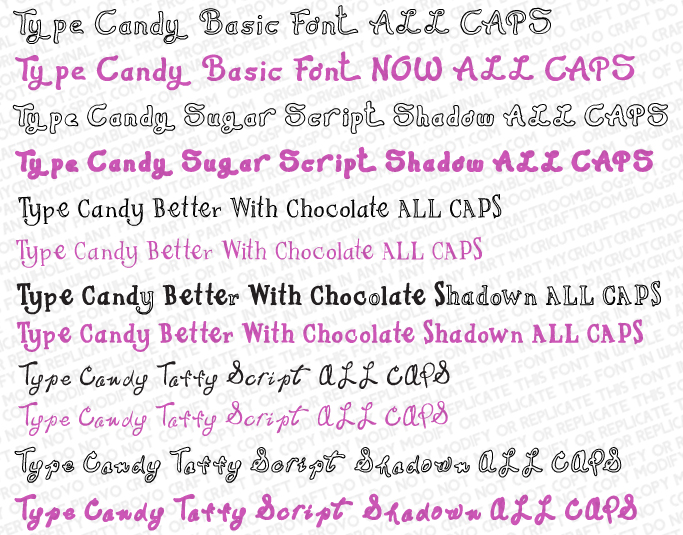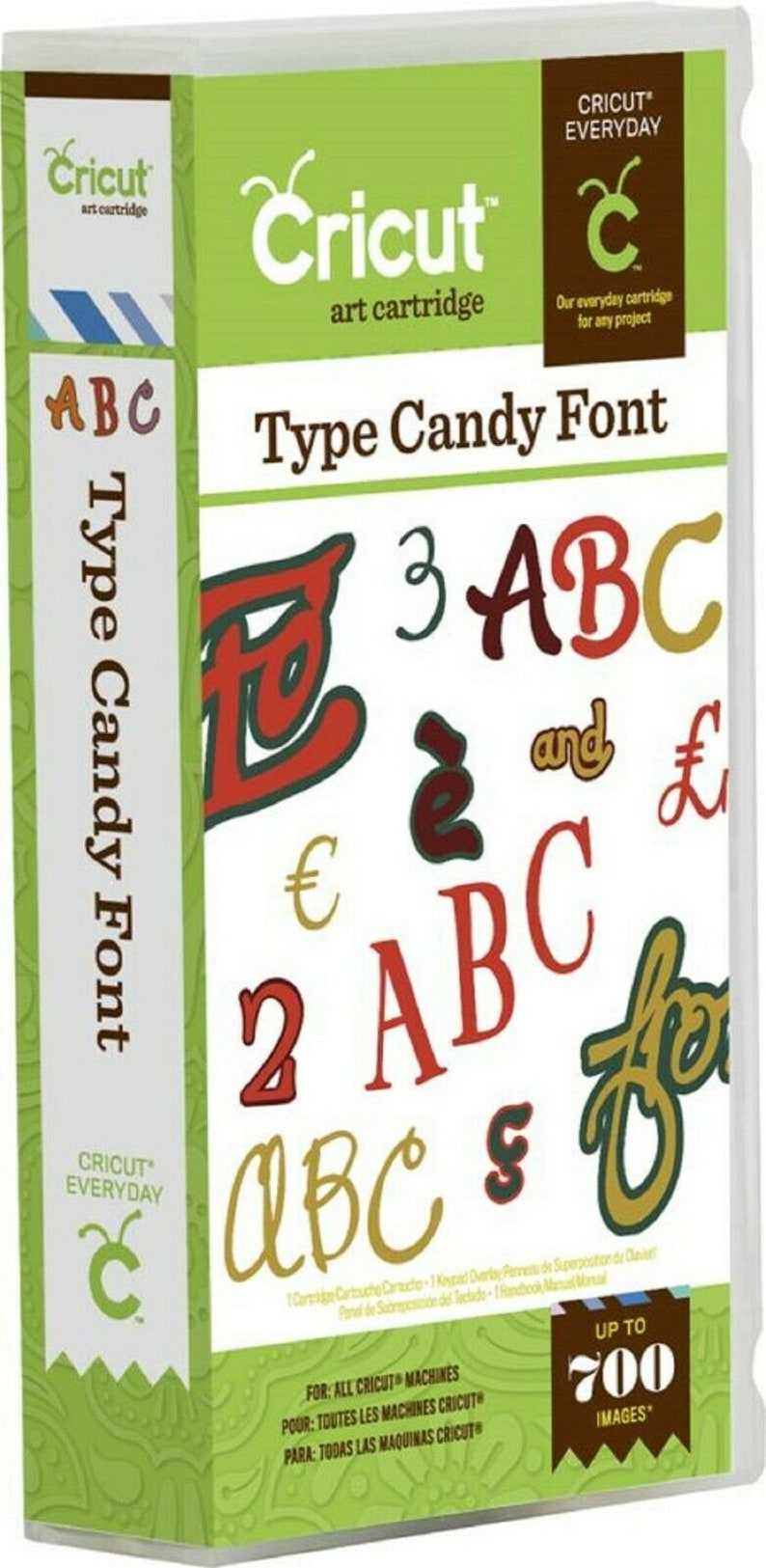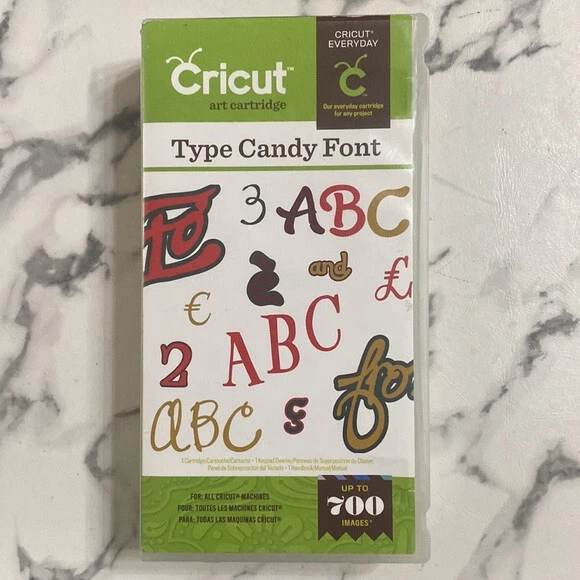
Cricut Cartridge Type Candy Font . A unique and special font that can be used to enhance just about any project. Get the best deals for type candy font cricut cartridge at ebay.com. A unique and special font that can be used to enhance just about any project. Find great deals on ebay for cricut type candy font cartridge. Spice up your creative projects with the type candy cartridge! See more circut 2001253 type candy cartridge; Spice up your creative projects with the type candy cartridge! This charming font cartridge features three sweet fonts with shadows. Find great deals on ebay for cricut type candy cartridge. Take fonts to a new level with the type candy cartridge. This charming font cartridge features three sweet fonts with. Share | add to watchlist. Take fonts to a new level with the type candy cartridge. We have a great online selection at the lowest prices with fast & free.
We have a great online selection at the lowest prices with fast & free. Find great deals on ebay for cricut type candy font cartridge. Take fonts to a new level with the type candy cartridge. Get the best deals for type candy font cricut cartridge at ebay.com. This charming font cartridge features three sweet fonts with shadows. Share | add to watchlist. Spice up your creative projects with the type candy cartridge! Spice up your creative projects with the type candy cartridge! A unique and special font that can be used to enhance just about any project. This charming font cartridge features three sweet fonts with.
Cricut Cartridge Type Candy Font Share | add to watchlist. Spice up your creative projects with the type candy cartridge! A unique and special font that can be used to enhance just about any project. Get the best deals for type candy font cricut cartridge at ebay.com. Take fonts to a new level with the type candy cartridge. Spice up your creative projects with the type candy cartridge! Find great deals on ebay for cricut type candy font cartridge. Share | add to watchlist. Take fonts to a new level with the type candy cartridge. We have a great online selection at the lowest prices with fast & free. A unique and special font that can be used to enhance just about any project. This charming font cartridge features three sweet fonts with shadows. Find great deals on ebay for cricut type candy cartridge. See more circut 2001253 type candy cartridge; This charming font cartridge features three sweet fonts with.
Type Candy Cricut fonts cartridges, Cricut expression, Cricut Cricut Cartridge Type Candy Font Share | add to watchlist. This charming font cartridge features three sweet fonts with. Get the best deals for type candy font cricut cartridge at ebay.com. A unique and special font that can be used to enhance just about any project. Take fonts to a new level with the type candy cartridge. See more circut 2001253 type candy cartridge; Spice. Cricut Cartridge Type Candy Font.
7 Cricut Cartridge Fontastic Fonts Ideas Cricut Cricu vrogue.co Cricut Cartridge Type Candy Font Find great deals on ebay for cricut type candy font cartridge. Get the best deals for type candy font cricut cartridge at ebay.com. A unique and special font that can be used to enhance just about any project. This charming font cartridge features three sweet fonts with shadows. Share | add to watchlist. A unique and special font that can. Cricut Cartridge Type Candy Font.
Cricut Font and Basic Shapes Cartridge Cricut Cartridge Type Candy Font This charming font cartridge features three sweet fonts with shadows. See more circut 2001253 type candy cartridge; Share | add to watchlist. Find great deals on ebay for cricut type candy font cartridge. Find great deals on ebay for cricut type candy cartridge. Spice up your creative projects with the type candy cartridge! We have a great online selection at. Cricut Cartridge Type Candy Font.
Cricut Cartridge TYPE CANDY FONT Brand New and Sealed Price Etsy Cricut Cartridge Type Candy Font We have a great online selection at the lowest prices with fast & free. Take fonts to a new level with the type candy cartridge. A unique and special font that can be used to enhance just about any project. This charming font cartridge features three sweet fonts with. Spice up your creative projects with the type candy cartridge! Get. Cricut Cartridge Type Candy Font.
Wedding card using cricut stretch your imagination and type candy font Cricut Cartridge Type Candy Font We have a great online selection at the lowest prices with fast & free. A unique and special font that can be used to enhance just about any project. This charming font cartridge features three sweet fonts with shadows. See more circut 2001253 type candy cartridge; Spice up your creative projects with the type candy cartridge! Share | add to. Cricut Cartridge Type Candy Font.
Cricut Cartridge Cricut Classic Font Cricut Cartridge Type Candy Font Find great deals on ebay for cricut type candy font cartridge. A unique and special font that can be used to enhance just about any project. See more circut 2001253 type candy cartridge; Spice up your creative projects with the type candy cartridge! Get the best deals for type candy font cricut cartridge at ebay.com. We have a great online. Cricut Cartridge Type Candy Font.
Funny Art Candy Cane Font Svg Candy Font Svg Christmas Letters Svg Cricut Cartridge Type Candy Font Find great deals on ebay for cricut type candy cartridge. Take fonts to a new level with the type candy cartridge. Find great deals on ebay for cricut type candy font cartridge. A unique and special font that can be used to enhance just about any project. See more circut 2001253 type candy cartridge; Spice up your creative projects with. Cricut Cartridge Type Candy Font.
Cricut Font Cartridge Library Hi Res Cricut Fonts Car vrogue.co Cricut Cartridge Type Candy Font Share | add to watchlist. This charming font cartridge features three sweet fonts with. A unique and special font that can be used to enhance just about any project. Take fonts to a new level with the type candy cartridge. A unique and special font that can be used to enhance just about any project. Find great deals on ebay. Cricut Cartridge Type Candy Font.
Cricut Type Candy Cartridge Everyday Art, Cartridges, Monopoly Deal Cricut Cartridge Type Candy Font This charming font cartridge features three sweet fonts with. A unique and special font that can be used to enhance just about any project. Find great deals on ebay for cricut type candy cartridge. Take fonts to a new level with the type candy cartridge. Find great deals on ebay for cricut type candy font cartridge. See more circut 2001253. Cricut Cartridge Type Candy Font.